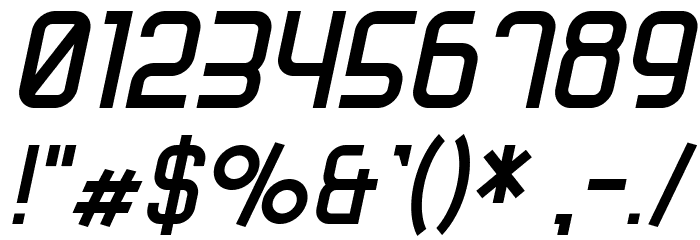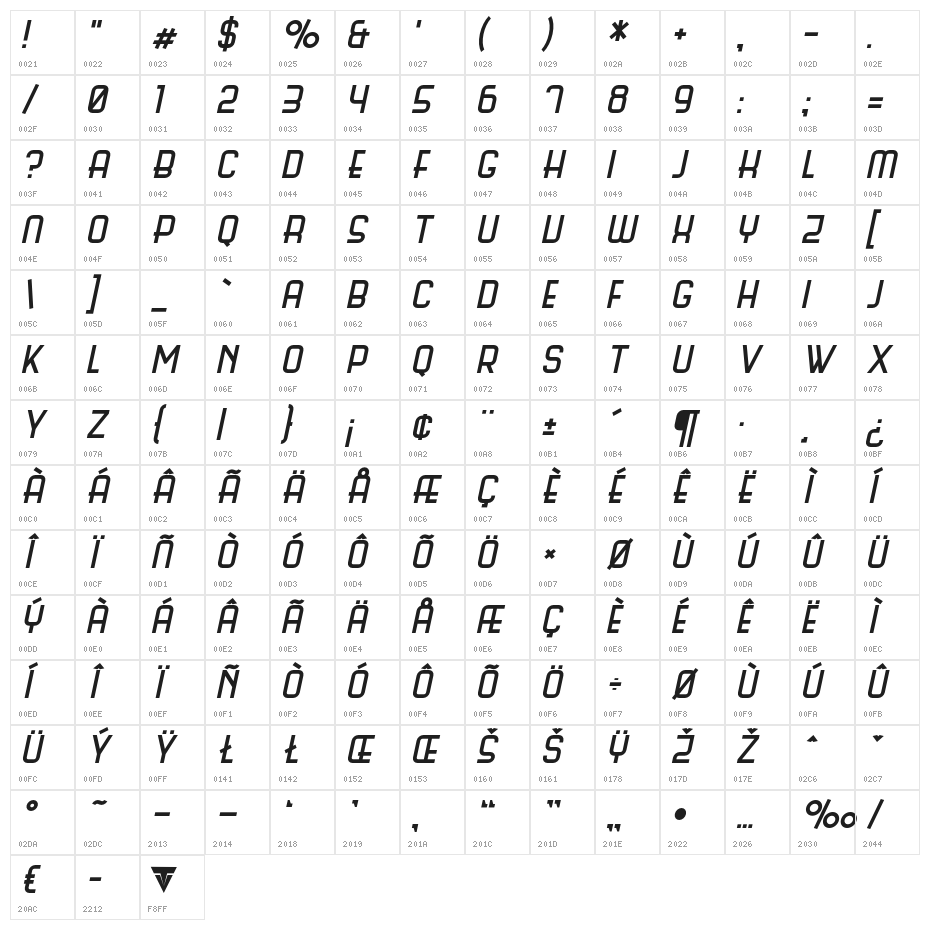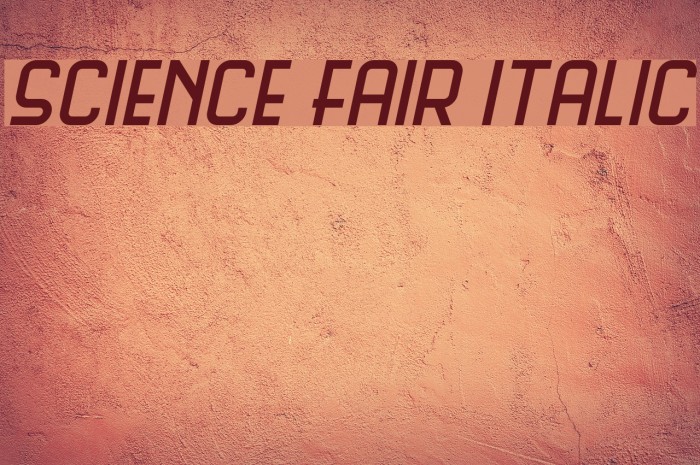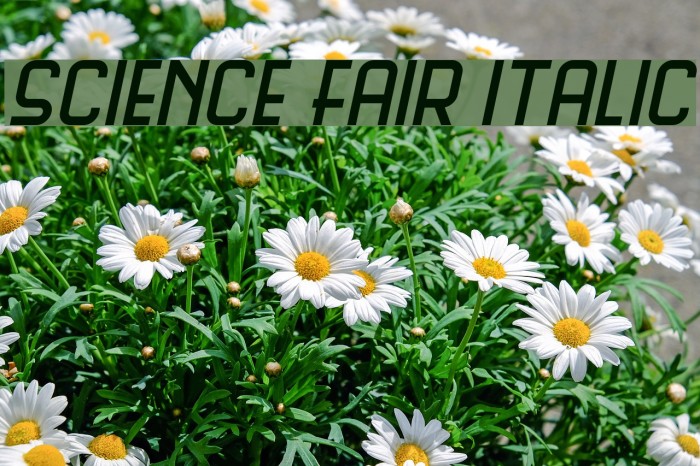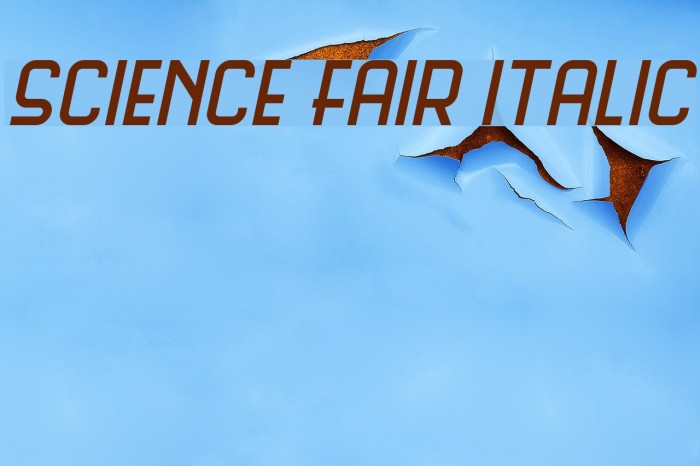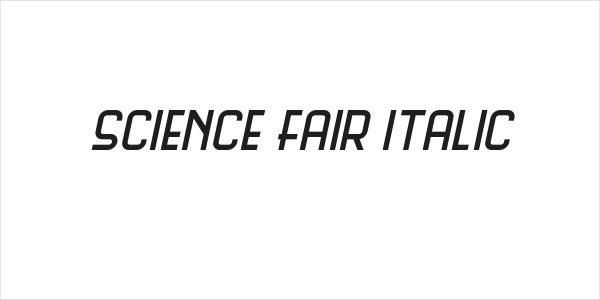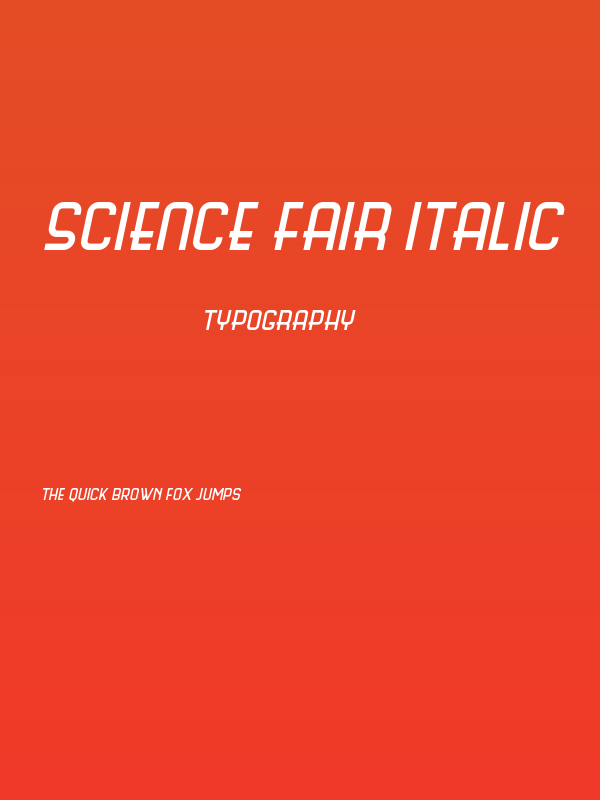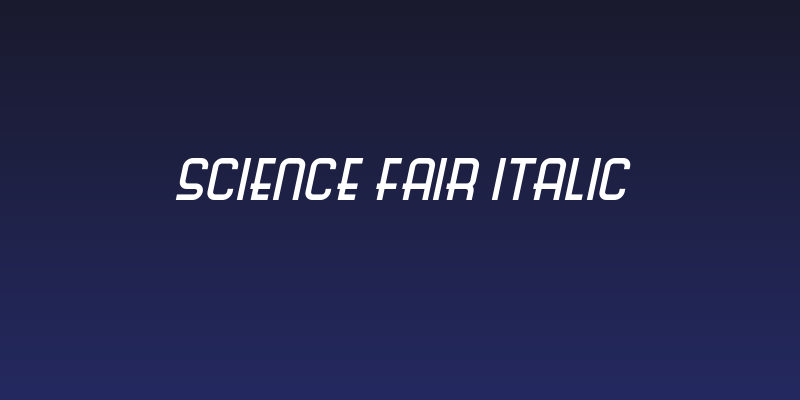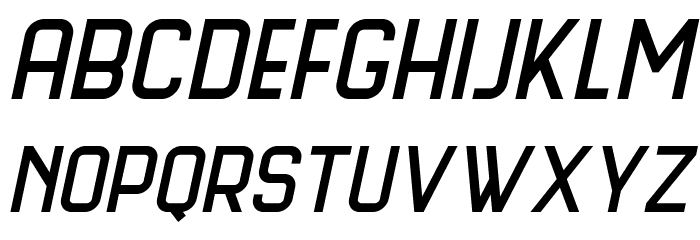
Science Fair Italic Font
Science Fair Italic Description
This font features a modern and dynamic style with a distinct italic slant, giving it a sense of motion and energy. The characters are bold and angular, with sharp edges and clean lines, creating a futuristic and technical appearance. The uppercase letters are uniform in height, while the lowercase letters maintain a consistent baseline, enhancing readability. The numerals are designed with a similar angular style, ensuring consistency across all characters. Special characters are included, maintaining the same bold and angular design, making this font versatile for various applications.